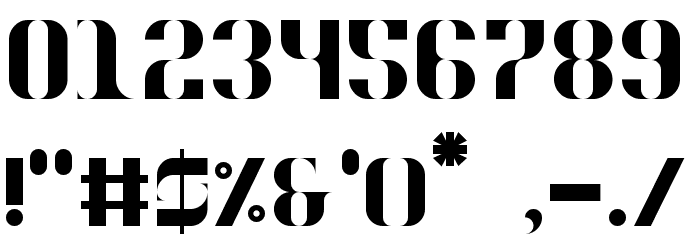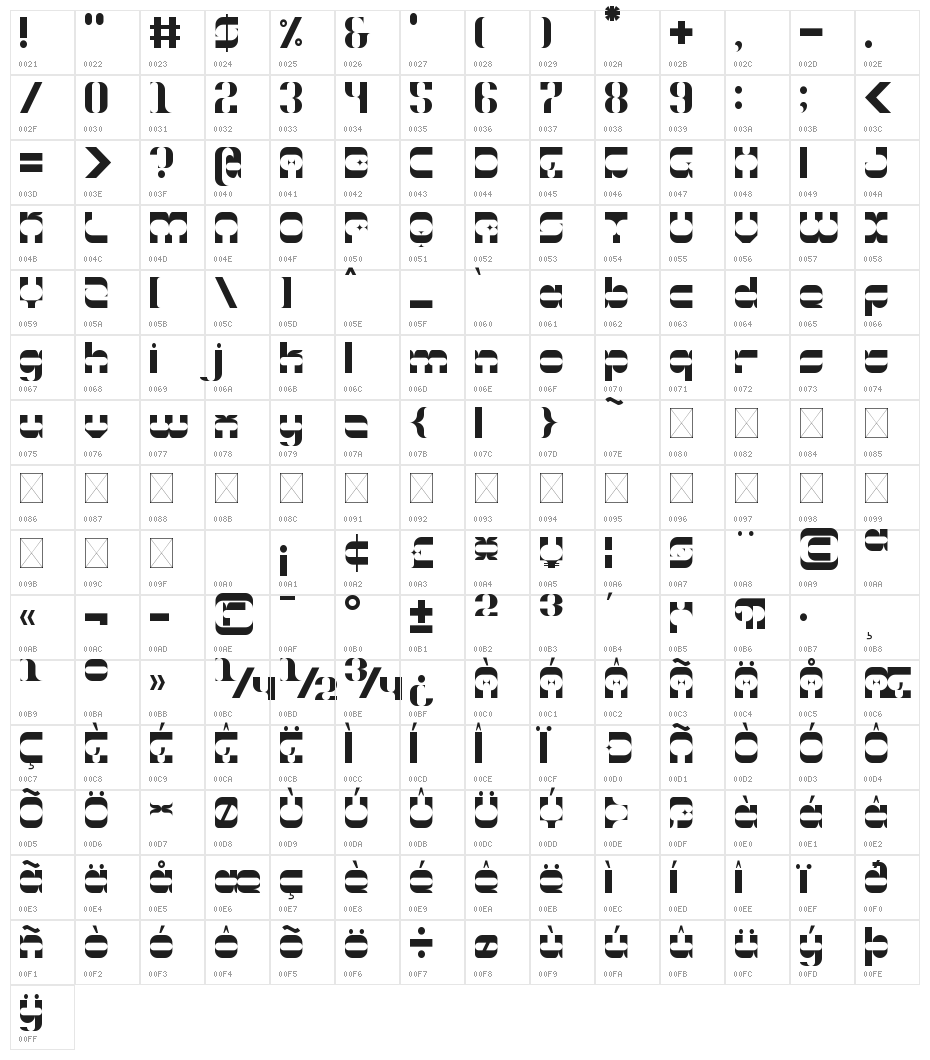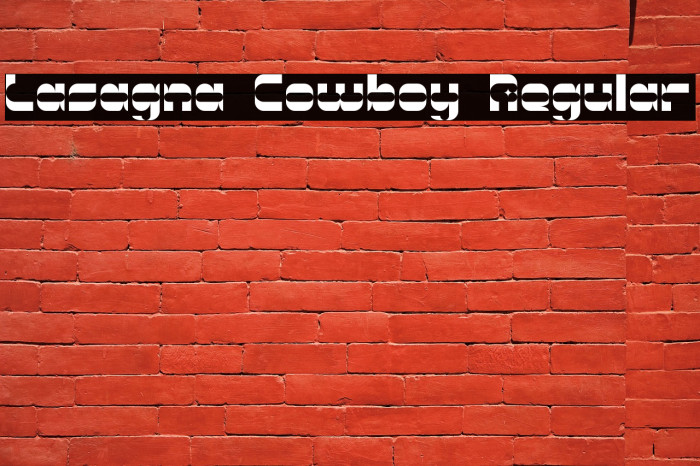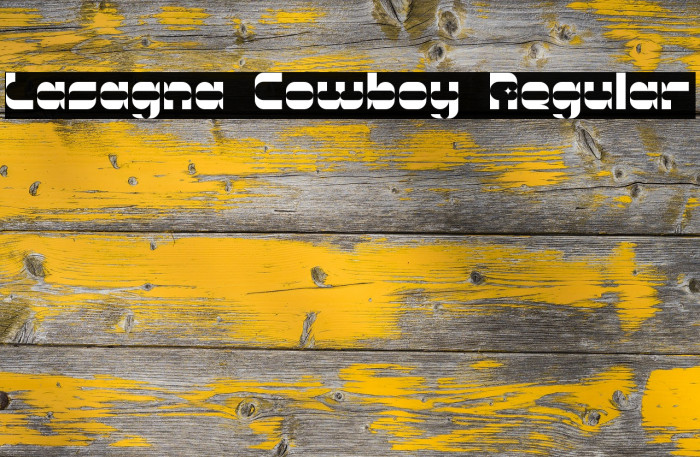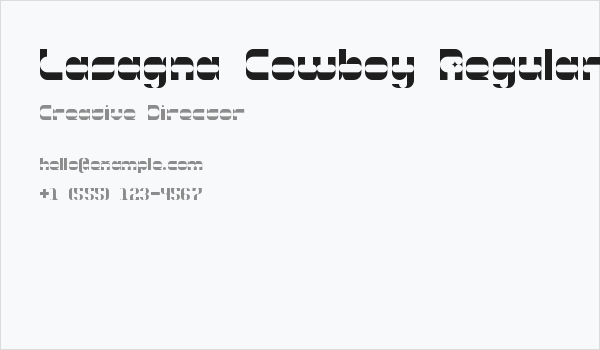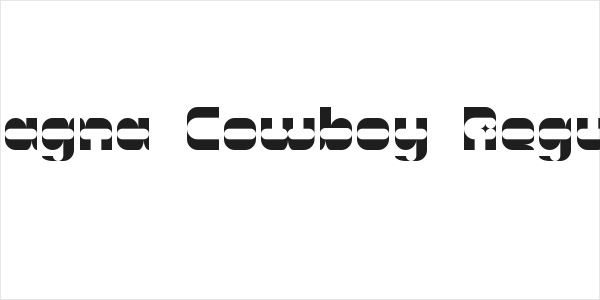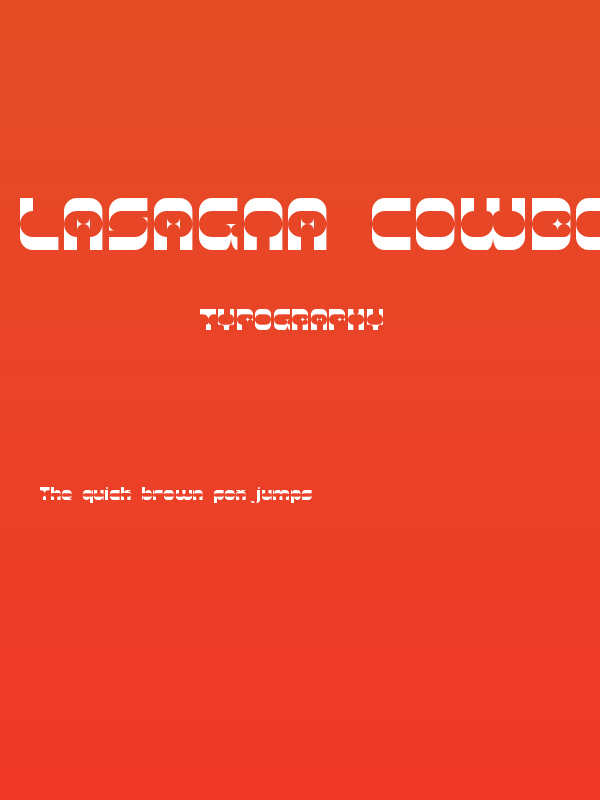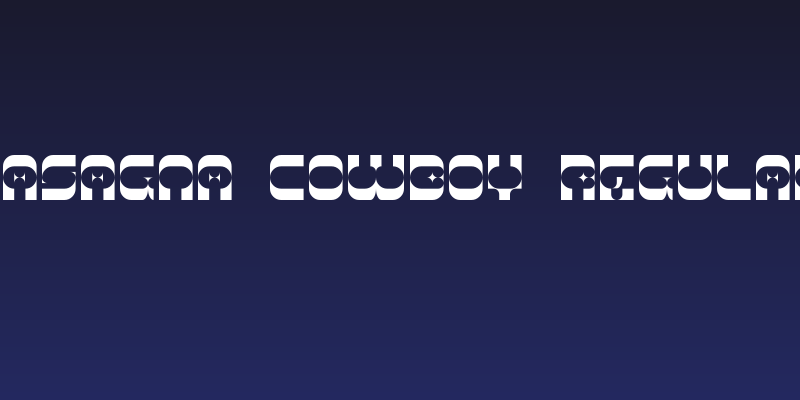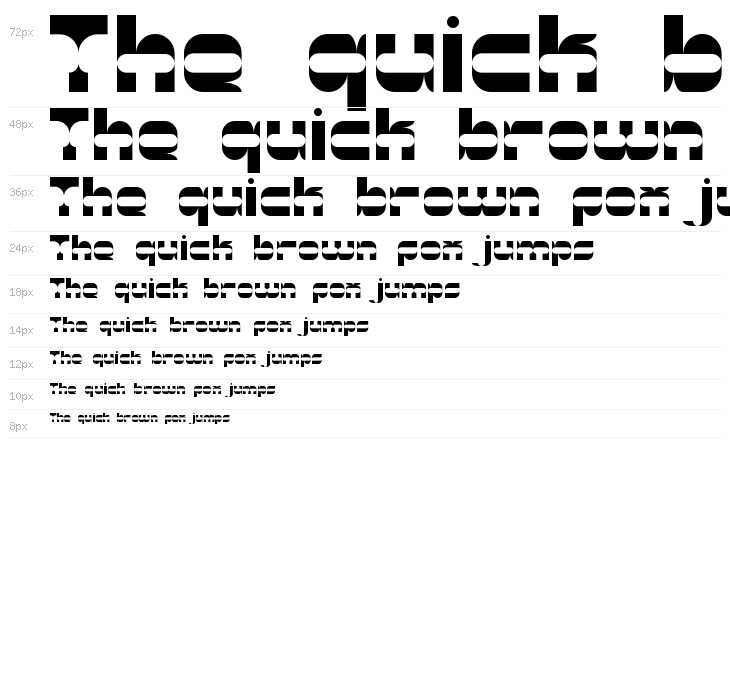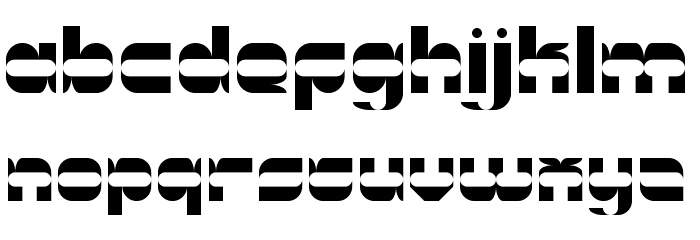
Lasagna Cowboy Regular Font
Lasagna Cowboy Regular Description
This font features a bold and striking design with a modern twist. The characters are constructed with a unique blend of geometric shapes and negative space, creating a visually captivating effect. The uppercase and lowercase letters maintain a consistent style, with rounded edges and a strong presence. The numerals and special characters follow the same design principles, ensuring uniformity across all glyphs. This font's distinct appearance makes it suitable for projects that require a bold statement and a contemporary feel.
| Proposed Projects | Ideal for branding, posters, album covers, and any project needing a bold, modern aesthetic. |